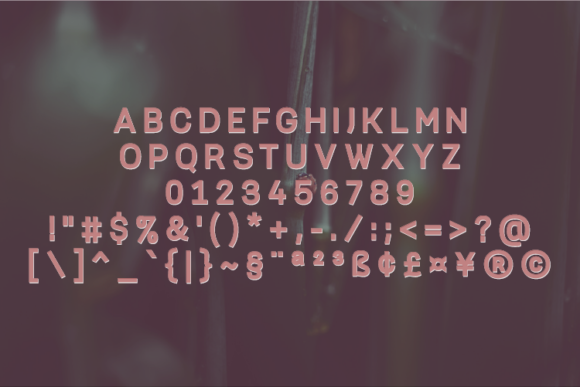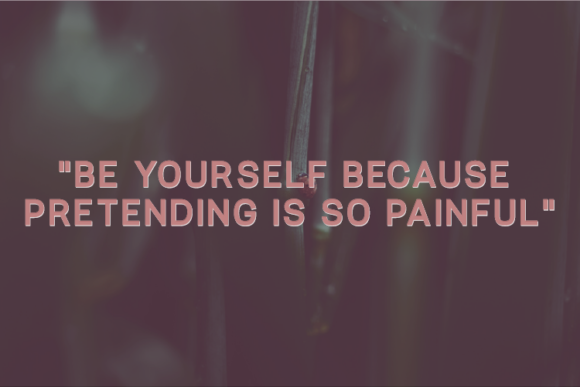
Introduction to Palemell Font Font
Fonts play a crucial role in design, and the Palemell Font font is a typeface that brings both character and versatility to any project. Whether you’re working on a branding project, a website, or a print design, the Palemell Font font offers a unique style that can elevate your work.
Palemell is a simple and natural sans serif font.
It can be matched to a large set of projects, so add it to your creative ideas and notice how it makes them stand out .
Key Features of Palemell Font Font
Why Choose Palemell Font Font?
The Palemell Font font is more than just a typeface – it’s a design tool that helps you communicate your message with style and clarity. Its unique character set and versatile design make it suitable for a wide range of applications, from elegant invitations to bold headlines.
With its carefully crafted letterforms and balanced proportions, the Palemell Font font ensures readability and visual appeal across all mediums.
What makes Palemell Font font special?
The Palemell Font font stands out with its unique design, exceptional readability, and versatility across various design applications.